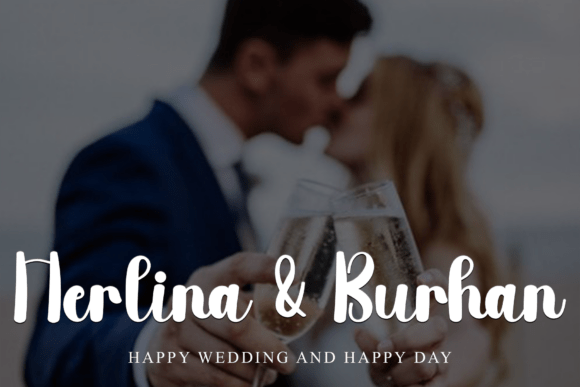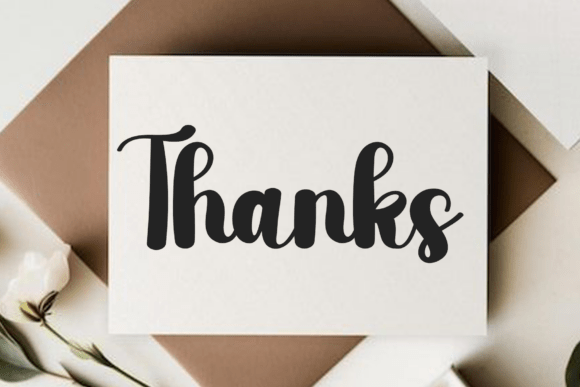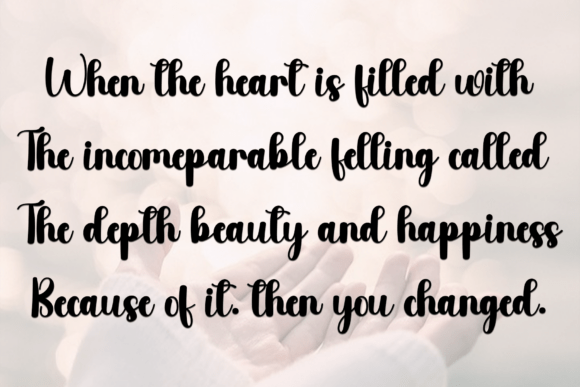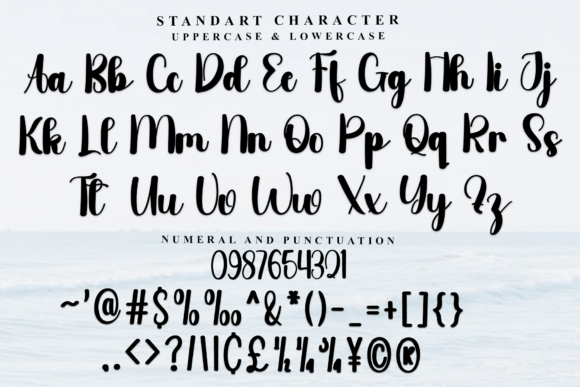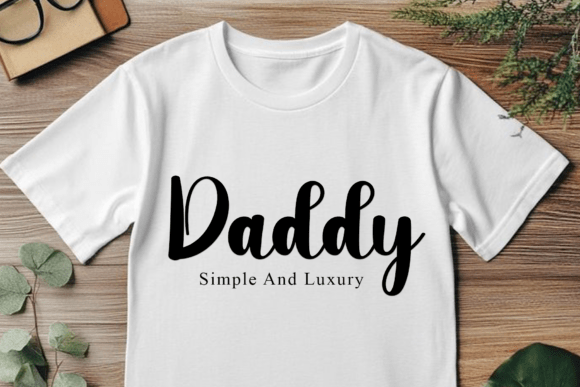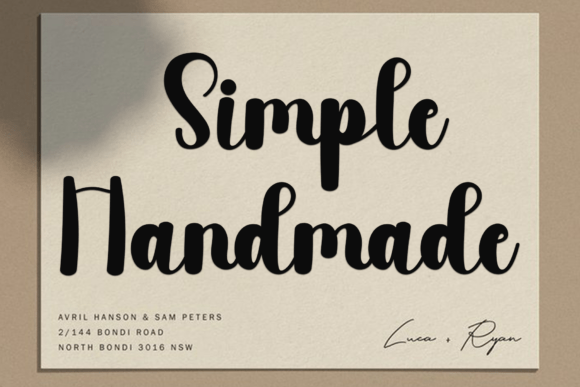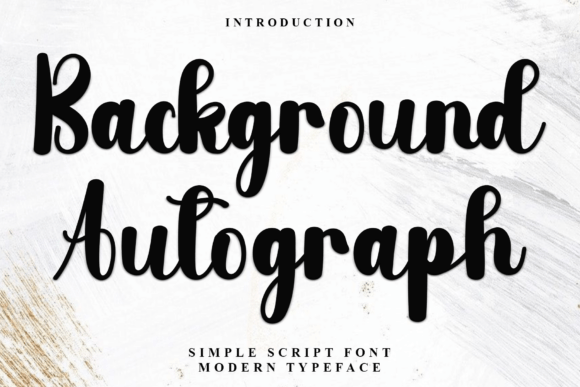
Introducing Background Autograph Font: The Perfect Blend of Casual and Creative
Are you looking for a font that can add a personal touch to your designs? Look no further than Background Autograph Font. This charming, hand-drawn font is perfect for designers and crafters who want to create unique and eye-catching projects. In this article, we’ll take a closer look at Background Autograph Font and explore its features, benefits, and uses.
The Characteristics of Background Autograph Font
Background Autograph Font is a casual and creative font that exudes warmth and friendliness. Its round, playful strokes create a relaxed and approachable feel, making it perfect for personal projects, invitations, and social media graphics. The font’s charming, hand-drawn aesthetic adds a fun and unique touch to any design, setting it apart from more traditional fonts.
One of the standout features of Background Autograph Font is its versatility. It’s equipped with standard PUA Encoded glyphs, which are designed to work seamlessly with various application engines such as Adobe Photoshop, Corel, Adobe Illustrator, Canva, and many others. This means that you can use Background Autograph Font in a wide range of design software, making it easy to incorporate into your workflow.
The Benefits of Using Background Autograph Font
So why should you choose Background Autograph Font for your next project? Here are just a few benefits of using this amazing font:
- Unique and eye-catching designs: Background Autograph Font’s hand-drawn aesthetic adds a touch of personality to any design, making it stand out from the crowd.
- Easy to use: With standard PUA Encoded glyphs, you can easily access and use the font in your favorite design software.
- Versatile: Background Autograph Font is perfect for a wide range of projects, from personal invitations to social media graphics and more.
- Time-saving: With Background Autograph Font, you can create professional-looking designs in no time, thanks to its pre-designed glyphs and easy-to-use interface.
Uses for Background Autograph Font
Background Autograph Font is perfect for a wide range of projects, including:
- Personal invitations: Whether you’re planning a wedding, birthday party, or baby shower, Background Autograph Font is the perfect choice for creating custom invitations.
- Social media graphics: Add a personal touch to your social media graphics with Background Autograph Font, perfect for creating eye-catching posts and stories.
- DIY projects: If you’re a crafter or DIY enthusiast, Background Autograph Font is a great choice for creating custom labels, signs, and other projects.
- Branding and marketing: Use Background Autograph Font to create unique and memorable branding and marketing materials, such as logos, brochures, and business cards.
Tips for Getting the Most Out of Background Autograph Font
Here are a few tips for getting the most out of Background Autograph Font:
- Experiment with different colors and textures: Background Autograph Font looks great in a variety of colors and textures, so don’t be afraid to get creative and try out different combinations.
- Use it in combination with other fonts: Background Autograph Font pairs well with other fonts, so try combining it with a bold or serif font for added visual interest.
- Take advantage of PUA Encoded glyphs: With standard PUA Encoded glyphs, you can easily access and use a wide range of characters and symbols, making it easy to add a personal touch to your designs.
In conclusion, Background Autograph Font is a versatile and creative font that’s perfect for designers and crafters who want to add a personal touch to their projects. With its charming, hand-drawn aesthetic and standard PUA Encoded glyphs, it’s easy to use and works seamlessly with a wide range of design software. Whether you’re creating personal invitations, social media graphics, or DIY projects, Background Autograph Font is the perfect choice. So why wait? Download Background Autograph Font today and start creating unique and eye-catching designs!